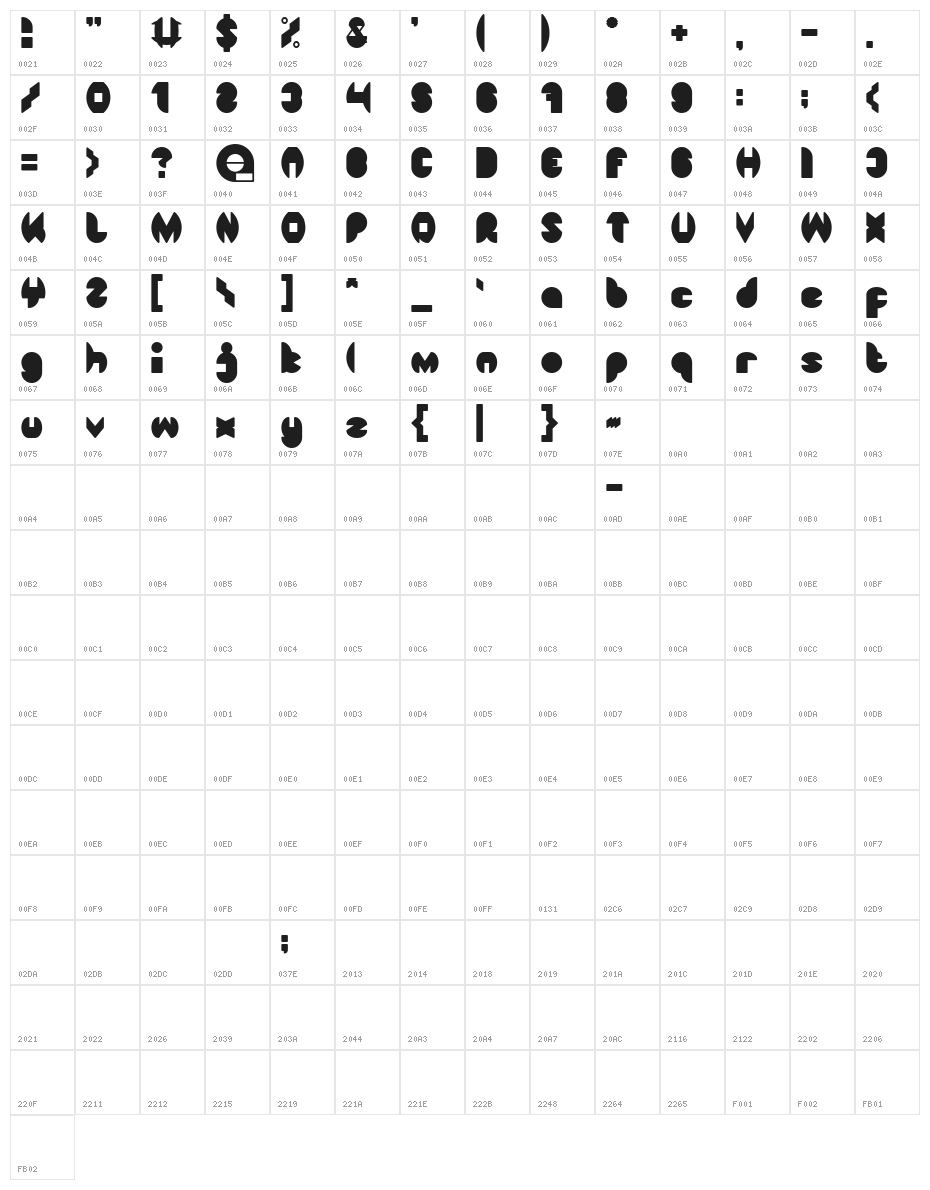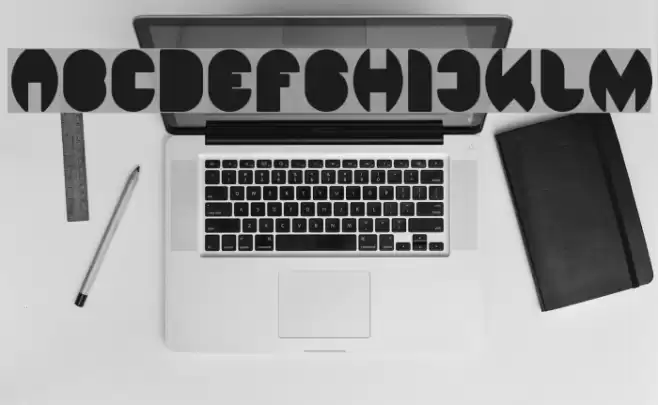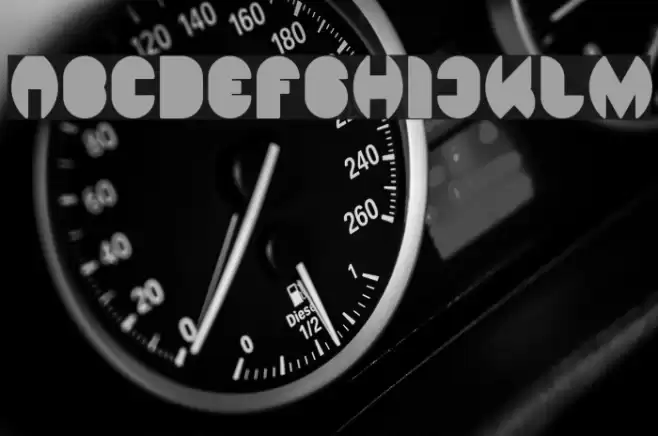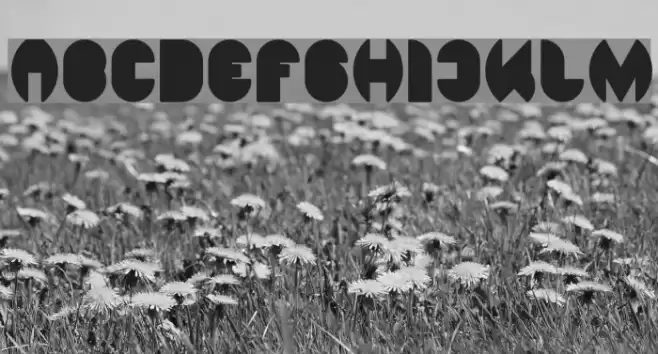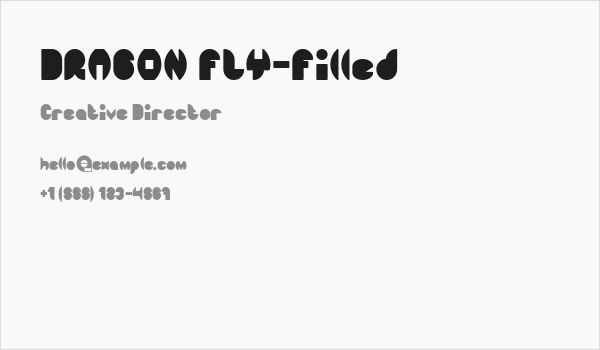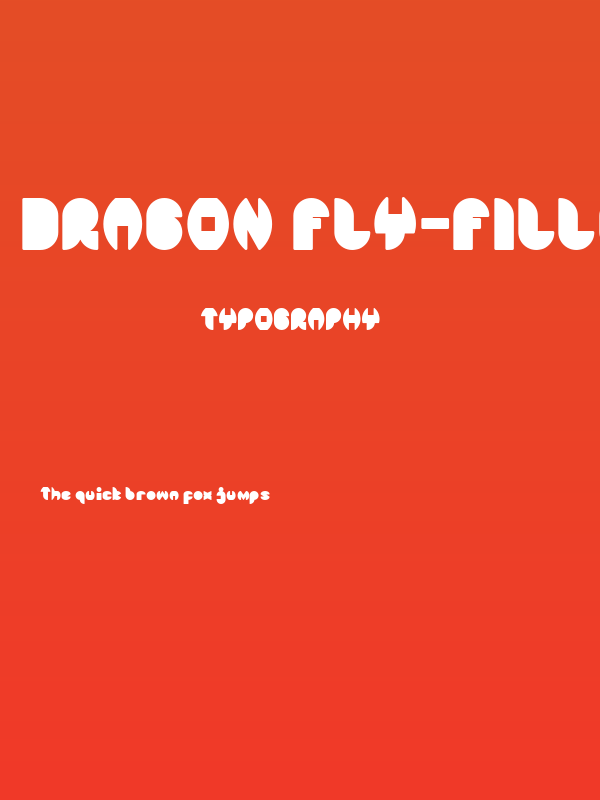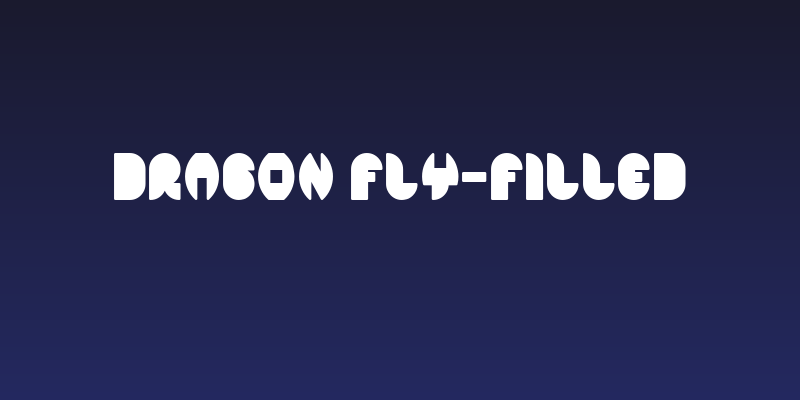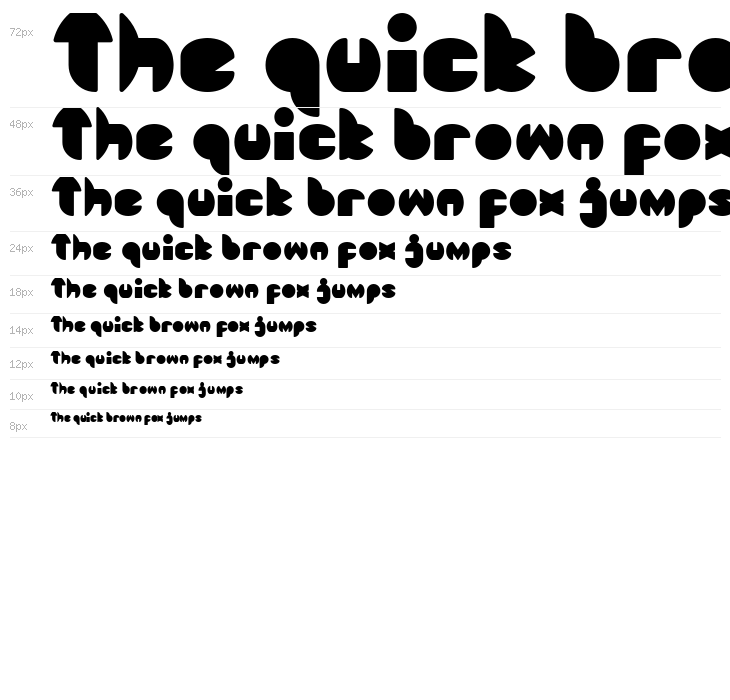
DRAGON FLY-Filled Font
DRAGON FLY-Filled Description
This font features a bold and playful design with a distinctly geometric and abstract style. The characters are heavily stylized with thick, rounded shapes that create a sense of fullness and weight. The uppercase and lowercase letters maintain a consistent visual theme, with unique cutouts and angles that add a modern and artistic flair. Numbers and special characters follow the same design principles, ensuring a cohesive look across all glyphs. The font's boldness and unique character shapes make it ideal for eye-catching designs.